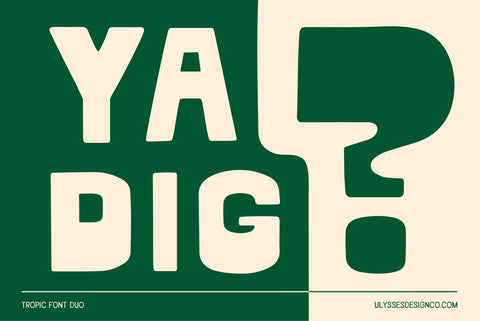
Tropic Bold Duo Font
Boldly Vintage, Uniquely Modern – Meet the Tropic Font Duo
Unlock the Power of Timeless Typography with Tropic Font Duo by Ulysses Design Co.—a dynamic hand-drawn typeface pairing that brings the vintage charm of wood type into the modern era. Inspired by the bold aesthetics of 1800s American printing, Tropic Font Duo is your go-to for creating standout branding, apparel, and collateral that commands attention.
Two Fonts, Endless Possibilities
• Tropic Bold: A modern homage to Gothic Bold, this font features tall letters and sharp, angular corners, but with a twist. Tropic Bold’s rounded corners and subtle imperfections give it a softer, more approachable feel—perfect for designs that need to be both strong and stylish.
• Tropic Sans: Complementing Tropic Bold, this sans serif offers a versatile and clean aesthetic, making it ideal for pairing and creating cohesive, eye-catching designs.
Font Features:
• Hand-Drawn Typeface Pairing: Two fonts that work in harmony to elevate your design projects.
Why Tropic Font Duo?
Whether you’re designing for print or digital, Tropic Font Duo offers the perfect blend of vintage authenticity and modern versatility. Ideal for branding, apparel, posters, and more, these fonts bring a touch of history and a lot of personality to your work.